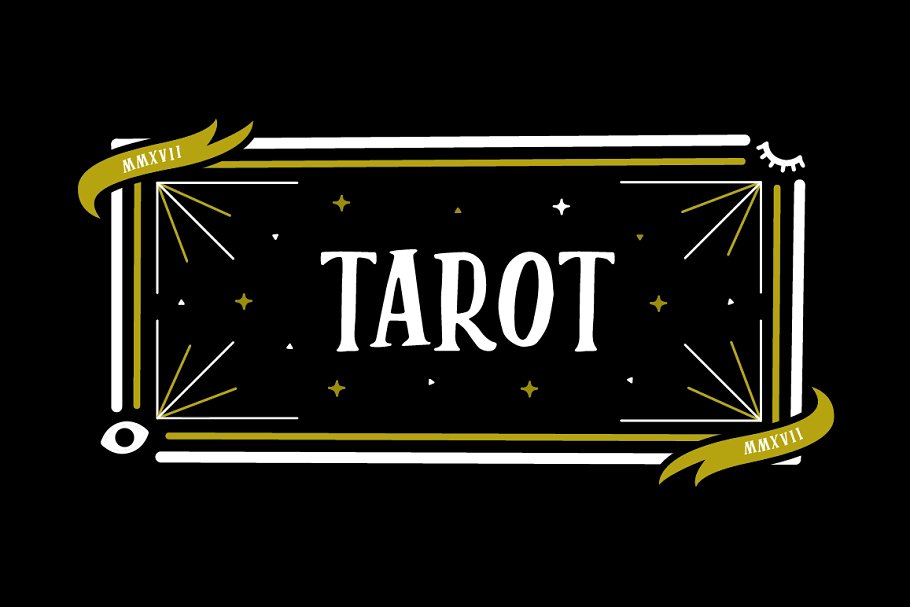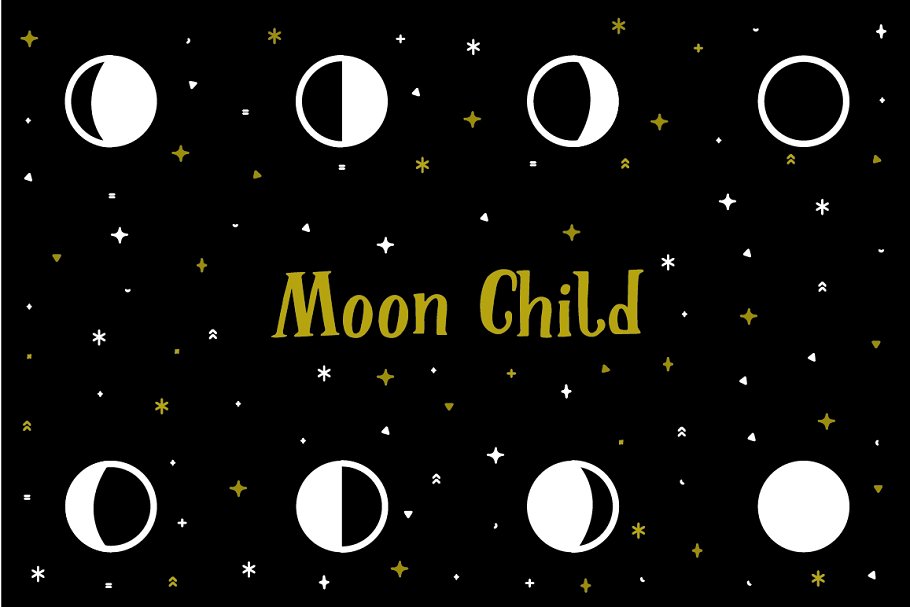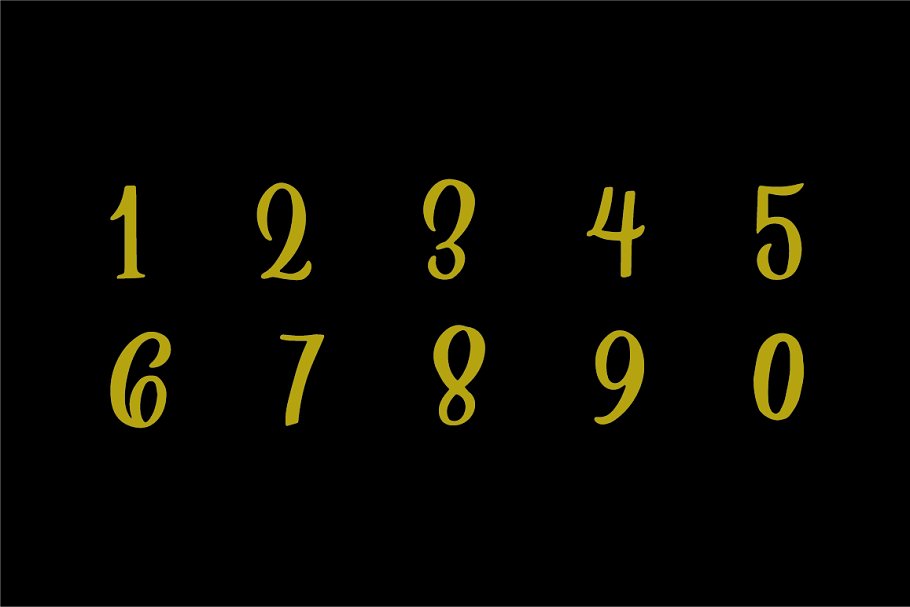
About the Tarot Font
Let Tarot wisp you away onto an enchanted journey, This whimsical serif typeface is perfect for headlines, small bodies of text, and feels like magic when paired with scripted type, Inspired partly by Helsing, Tarot features a similar essence, along with an alluring and spontaneous handwritten presence, Tarot is a charming font used to make anything created feel bewitched